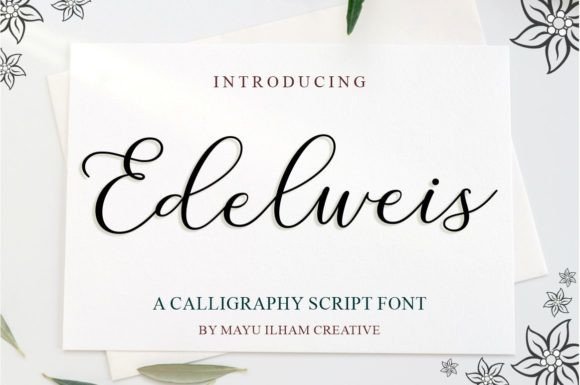
Step into the enchanting world of Edelweiss Font, a calligraphy script that exudes elegance and sophistication. Its graceful curves and delicate flourishes lend a touch of luxury to any project, whether it's a heartfelt Christmas letter, an eye-catching invitation, or a captivating social media post.
With its natural handwritten charm, Edelweiss Font adds a personal touch to your creative endeavors. It's the perfect choice for those seeking a typeface that speaks volumes without uttering a single word. Its versatility shines through in its ability to seamlessly blend with various design styles, from classic and timeless to modern and whimsical.
Picture your Christmas letter adorned with the intricate swirls and flourishes of Edelweiss Font. The warmth and joy of the season come alive as your words dance across the page, evoking a sense of nostalgia and cherished memories. Your recipients will feel the love and care you poured into each letter, making the holiday season even more magical.
Unleash your creativity and let Edelweiss Font transform your invitations into works of art. Its elegant charm adds a touch of exclusivity to special occasions, be it a wedding, a birthday celebration, or a corporate event. Your guests will be captivated by the intricate details and the unique personality that Edelweiss Font brings to your invitations.
Edelweiss Font's versatility extends beyond personal correspondence and extends to the realm of branding and packaging. It's the perfect choice for businesses looking to create a strong and lasting impression. With its timeless appeal, Edelweiss Font adds a touch of sophistication to logos, product labels, and packaging designs. Your brand will radiate luxury and professionalism, leaving a lasting impression on customers.
Join the creative revolution and experience the magic of Edelweiss Font. Its endless possibilities and captivating beauty will elevate your projects to new heights. Discover the power of this extraordinary calligraphy script and let your creativity soar. Embrace the elegance and charm of Edelweiss Font today!